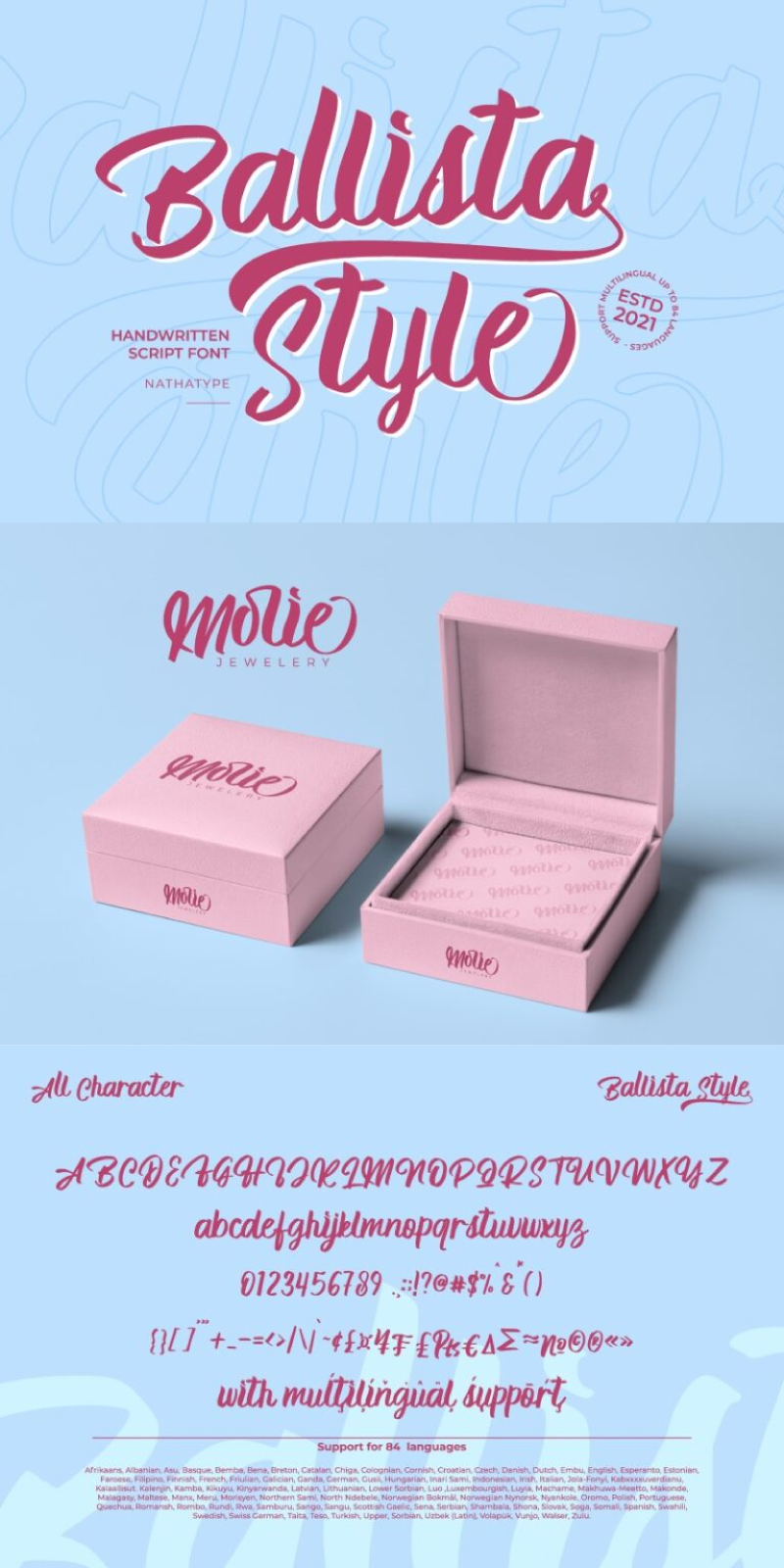
Ballista Font
About Ballista
Ballista Style is a delightful handwritten font that adds a playful touch to your designs. Each letter in Ballista Style is meticulously designed to capture the whimsical essence of handwritten text, with playful curves and dynamic strokes.
The swinging ends add a touch of movement and flair to the font, giving it a sense of energy and spontaneity. What sets Ballista Style apart is its thick weight, which adds to its bold and confident appearance. In addition, enjoy the features here.
- Swashes
Ballista Style fits in headlines, logos, posters, flyers, branding materials, print media, editorial layouts, and many more designs. Find out more ways to use this font by taking a look at the font preview.